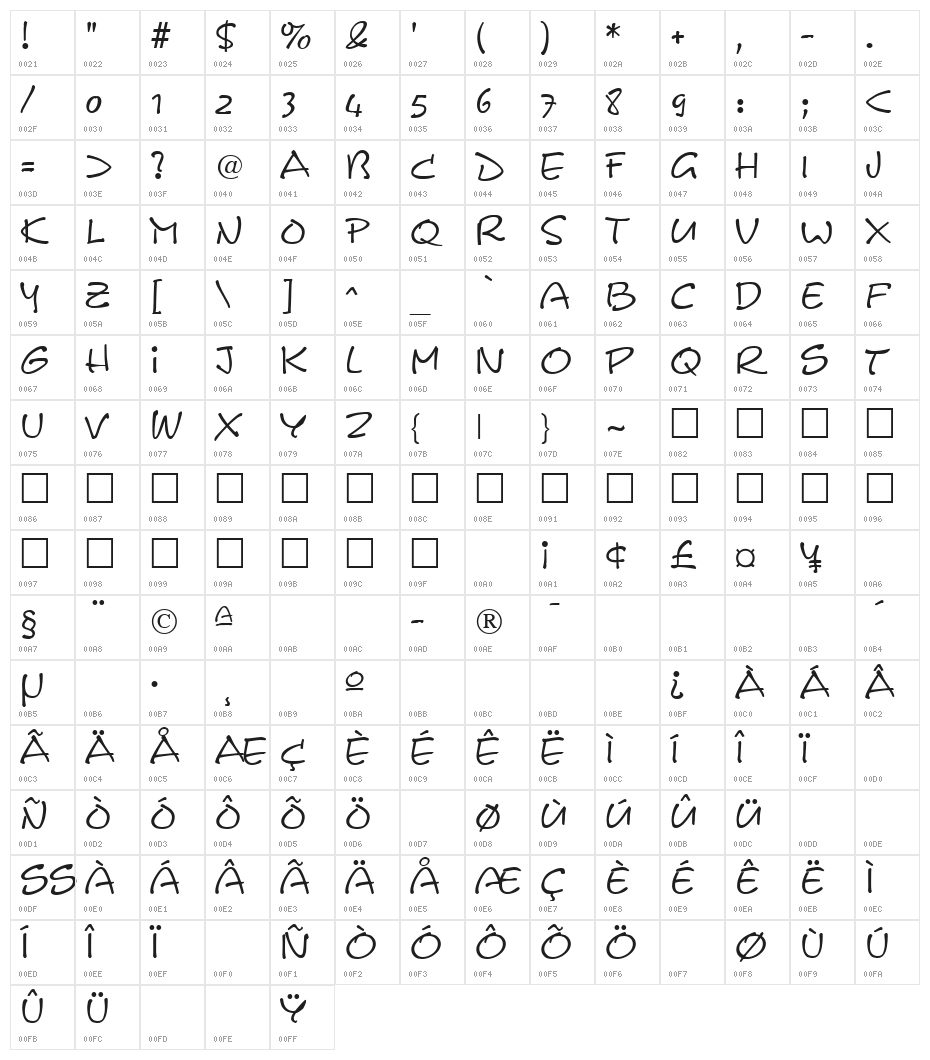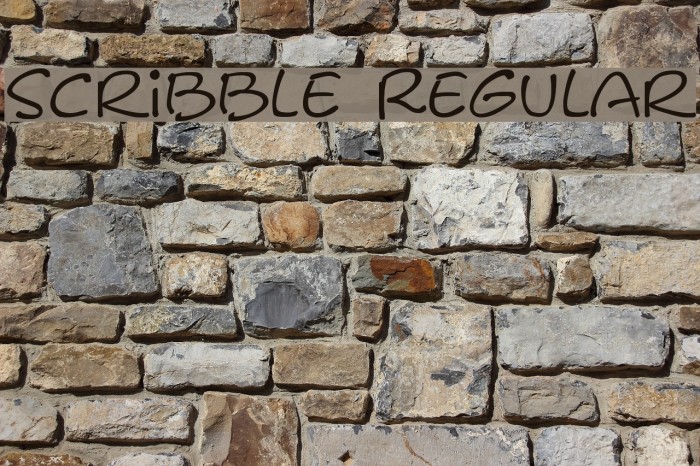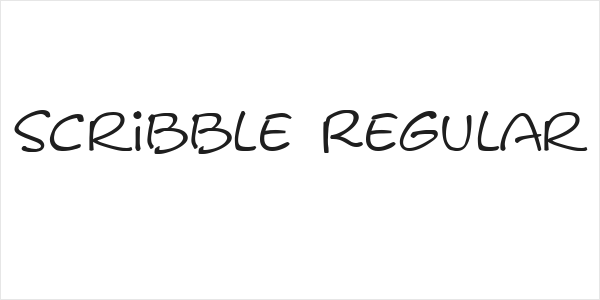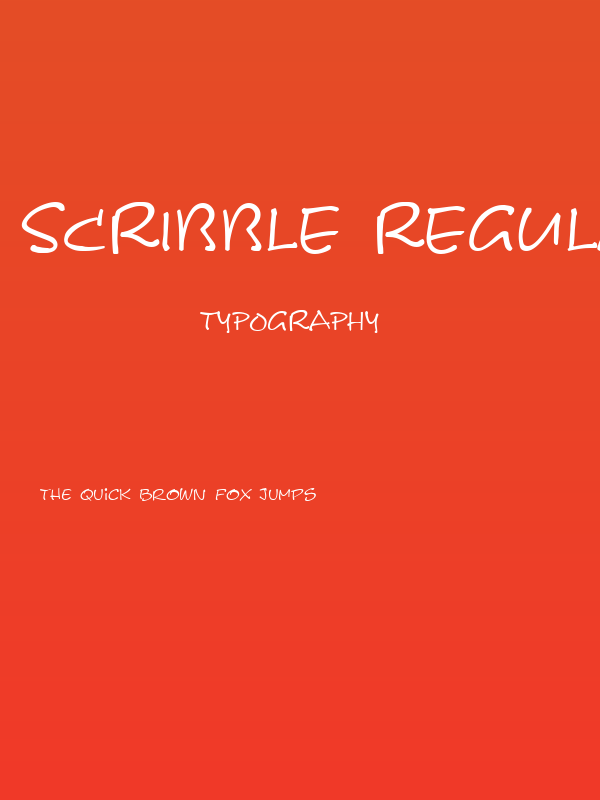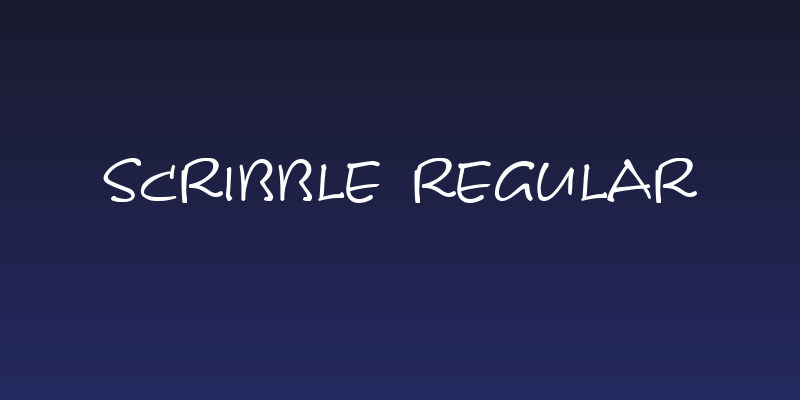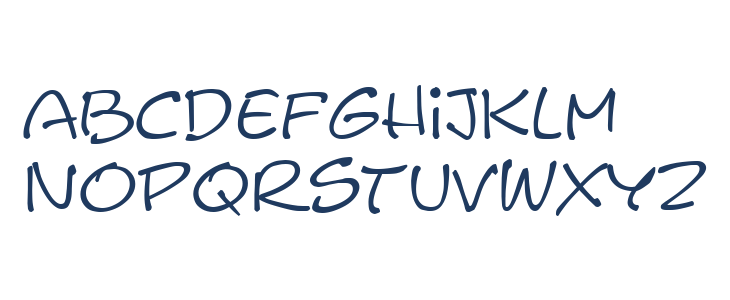
Scribble Regular Font
Scribble Regular Description
This font features a playful and casual handwritten style, reminiscent of a quick scribble with a marker. The characters are slightly irregular, adding to the informal and approachable feel. The uppercase and lowercase letters maintain a consistent flow, with rounded edges and a slight slant that gives a sense of movement. Numbers and special characters are designed to match the overall aesthetic, ensuring a cohesive look across all text. The font's unique personality makes it ideal for projects that require a touch of whimsy and creativity.
| Proposed Projects | Ideal for greeting cards, children's books, casual invitations, and creative branding. |